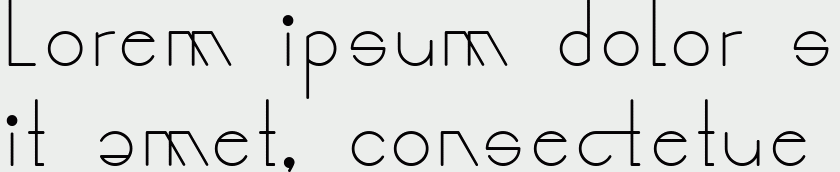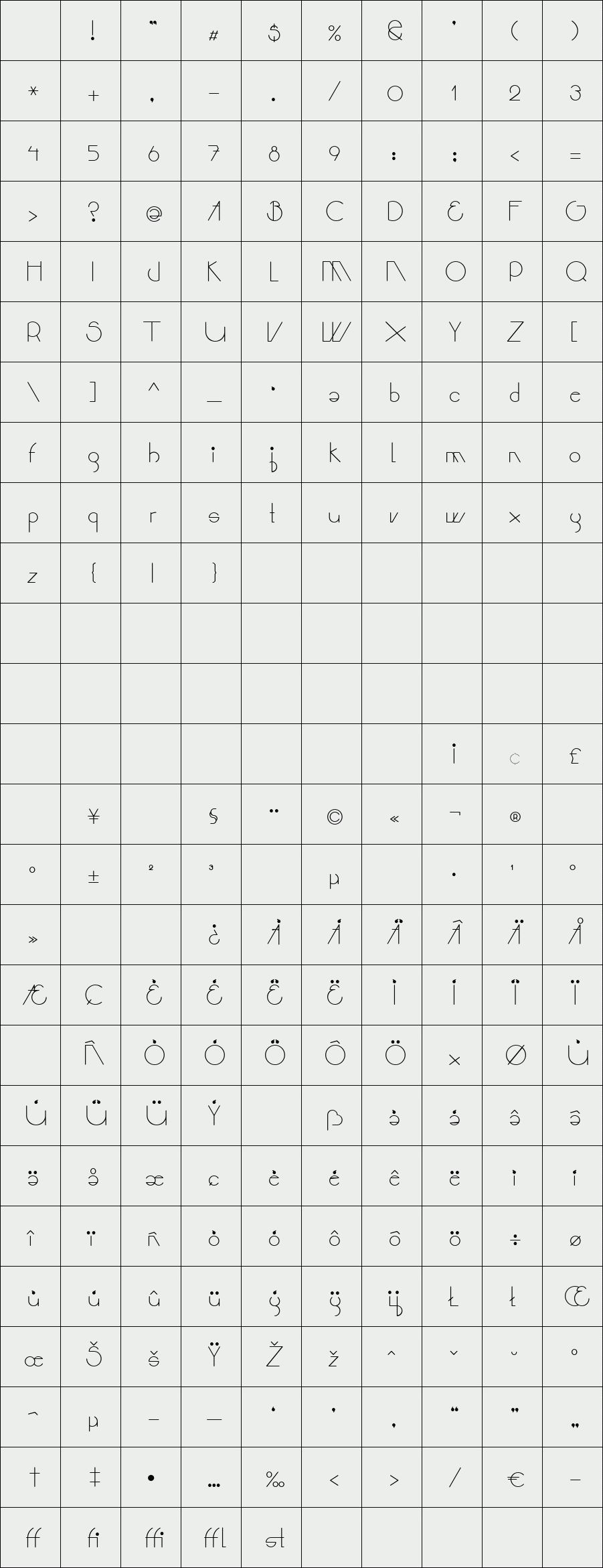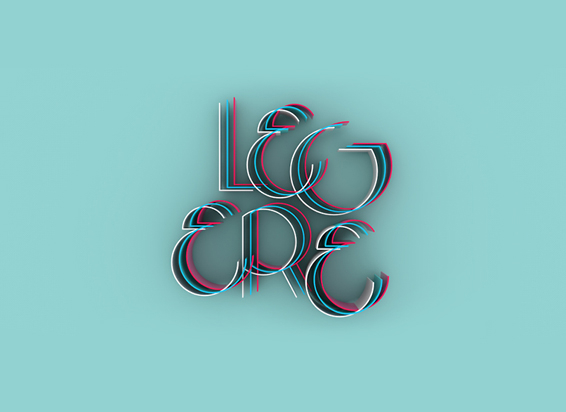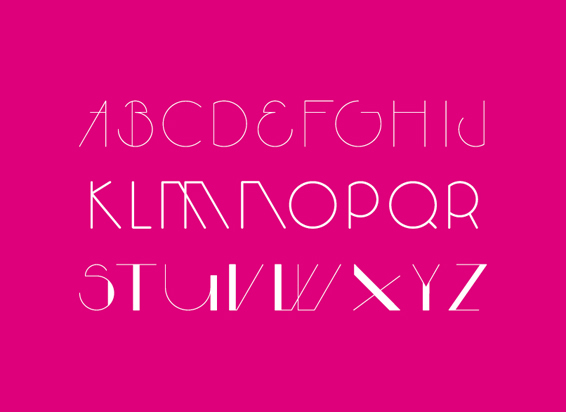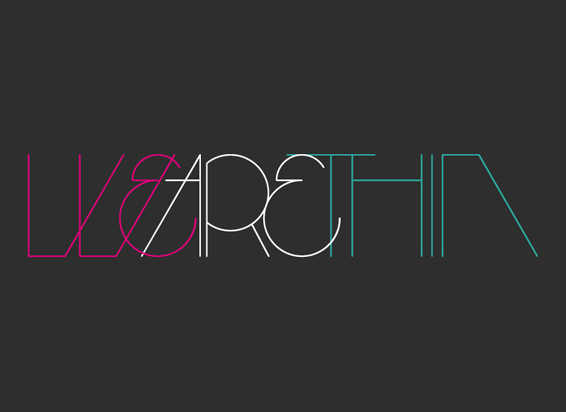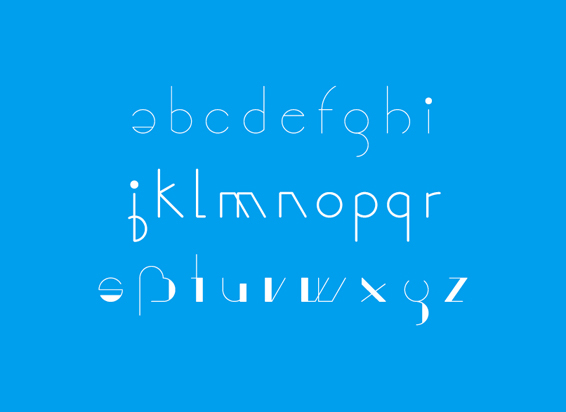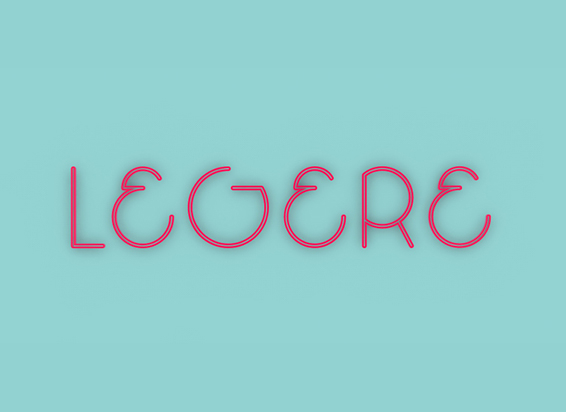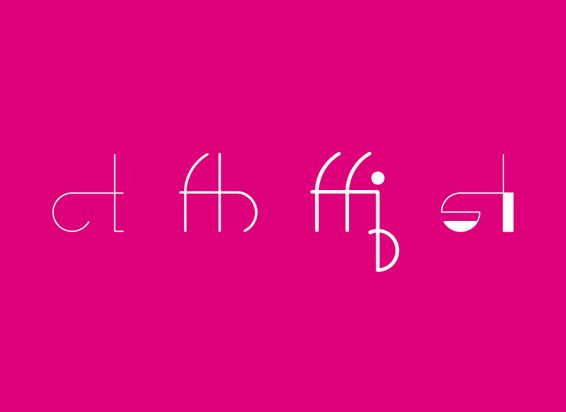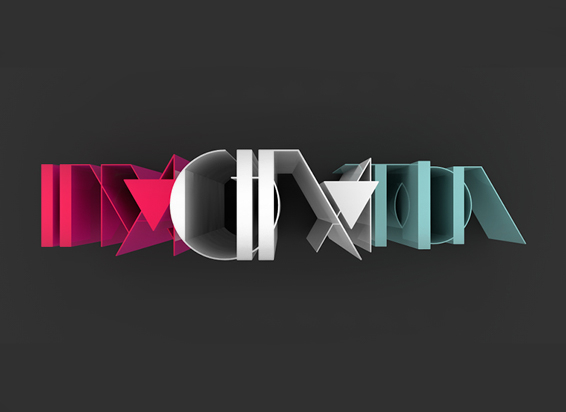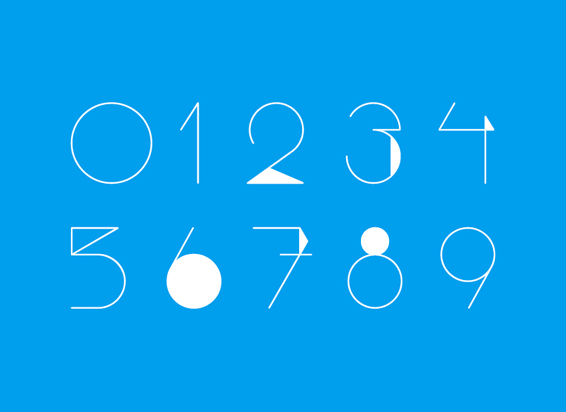
LEGERE
/ LEGERE Regular
LEGERE is a slim, light and decorative font, based on the idea to work as close as possible on the geometric forms of the circle, the triangle and the square. As a natural conclusion the number of angles is limited.
LEGERE comes in these weights: THIN, LIGHT, REGULAR and a very special DECO version. Legere might be used as a headline font, for posters or cover layout, it might also be transformed into that fashion label logotype you are working on. Have fun!
Designer: B2302